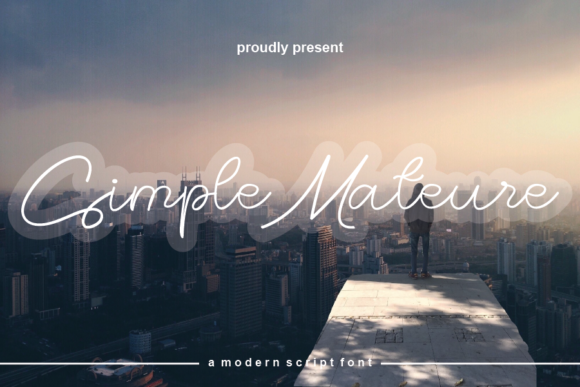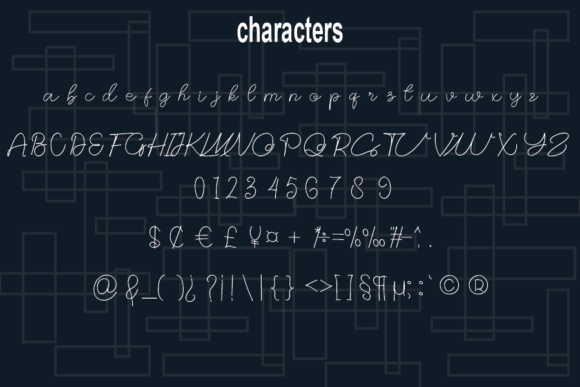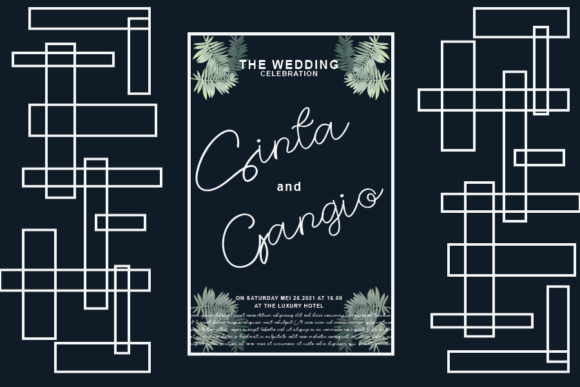
About Simple Mateure Font
Simple Mateure is a thin and friendly script font that combines elegance with approachability. With its unique style and timeless appeal, this font allows you to create spectacular designs that stand out from the crowd.
The thinness of Simple Mateure adds a touch of delicacy and sophistication to your typographic compositions. Its sleek letterforms and fine lines create a visually pleasing and refined aesthetic. Whether you’re working on branding, invitations, social media graphics, or any other design project, Simple Mateure font enhances the overall visual appeal with its thin and friendly demeanor.
Simple Mateure’s friendly and approachable appearance adds a warm and welcoming touch to your designs. Its flowing and legible character makes it easy to read and engaging to your audience. This font brings a sense of friendliness and versatility to your creations, making them visually appealing and suitable for a wide range of applications.
Fall in love with Simple Mateure and its completely different and timeless style. The unique design of this font sets it apart and allows you to create designs that are both contemporary and classic. Its thin and friendly script font adds a touch of elegance, making your designs visually captivating and memorable.
Incorporating Simple Mateure into your design process empowers you to create spectacular designs that are both timeless and distinctive. Its thin and friendly script font brings a sense of delicacy and approachability, enhancing the visual appeal and impact of your creations.
In summary, Simple Mateure is a thin and friendly script font that offers a unique and timeless style. Its sleek and refined appearance adds a touch of sophistication, while its friendly and approachable character makes it versatile for various design applications. Embrace the beauty of Simple Mateure font and let it inspire you to create spectacular designs that leave a lasting impression.